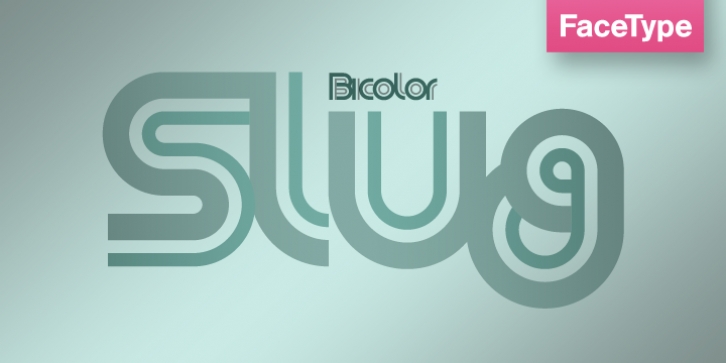
Slug is a art deco font family. This typeface has five styles and was published by FaceType.
Slug is a clean, geometric font, like they were widely used in the 1970s. To give the user a wide range of possibilities, we made not only a single and a double version, but also provided a bicolor solution: Combining Bicolor A and B You will create astounding multicolored pieces of typography.
· Slug Half
· Slug Single
· Slug Double
· Slug Bicolor A
· Slug Bicolor B